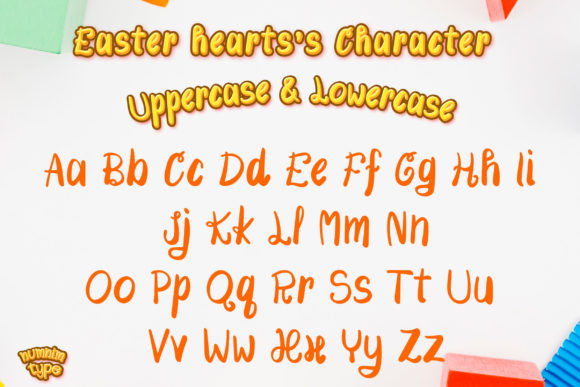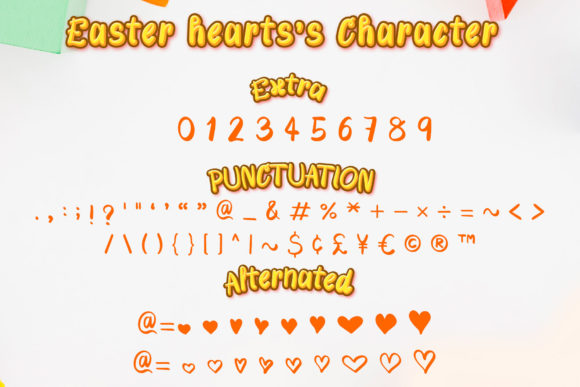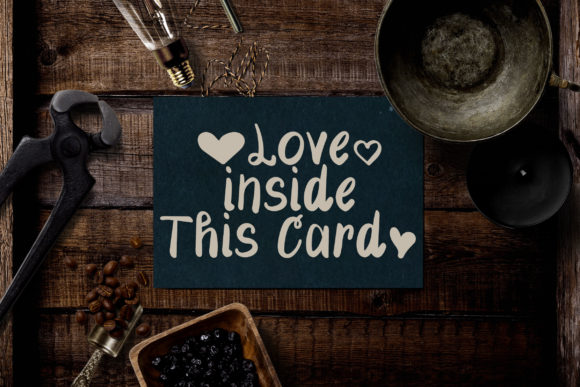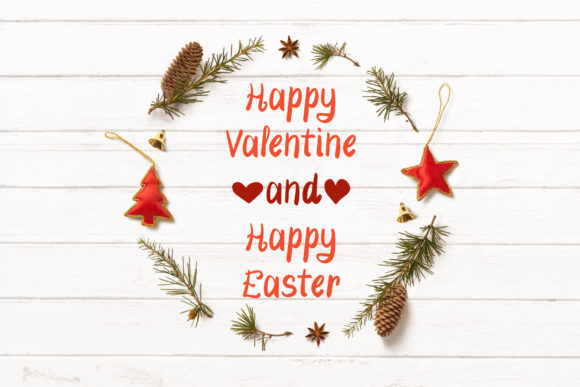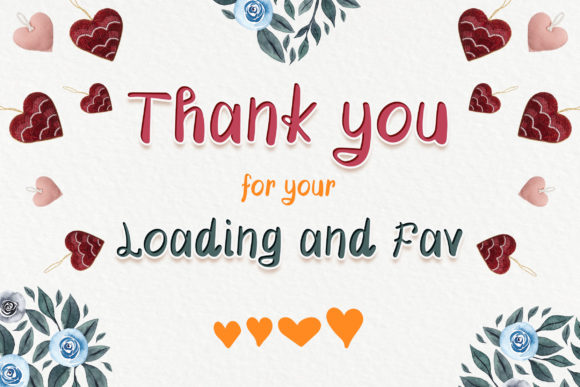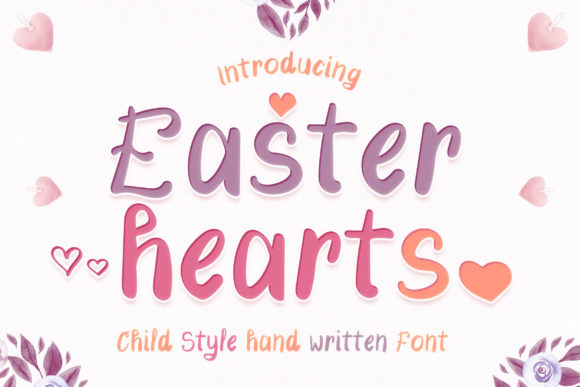
Easter Hearts Font: The Perfect Addition to Your Easter Designs
Are you looking for a font that captures the sweet and playful spirit of Easter? Look no further than Easter Hearts Font! This joyful and friendly display font is perfect for creating lovely designs for school or children-related projects. With its cute doodle elements and versatile style, Easter Hearts Font is sure to fall in love with your design heart.
What Makes Easter Hearts Font So Special?
Easter Hearts Font is a unique and charming font that features cute doodle elements, making it perfect for Easter-themed designs. The font’s sweet and playful style is sure to delight both kids and adults alike. Whether you’re creating designs for Easter cards, party invitations, or educational materials, Easter Hearts Font is the perfect choice.
One of the best things about Easter Hearts Font is that it’s PUA (Private Use Area) encoded. This means that you can access all of the glyphs and swashes with ease, giving you complete creative control over your designs. With PUA encoding, you can easily insert special characters, such as hearts, eggs, and other Easter-themed elements, into your designs.
Easter Hearts Font is a dream come true for designers and crafters. Whether you’re creating digital designs or handmade crafts, this font is perfect for adding a personal touch to your projects. Use Easter Hearts Font to create custom Easter cards, party decorations, or DIY crafts that are sure to impress.
Versatile and Easy to Use
Easter Design Ideas with Easter Hearts Font
Here are some Easter design ideas to get you started with Easter Hearts Font:
- Easter cards and invitations: Create custom Easter cards and invitations with Easter Hearts Font and make your loved ones feel special.
- Party decorations: Use Easter Hearts Font to create custom party decorations, such as banners, garlands, and DIY crafts.
- Easter-themed crafts: Create Easter-themed crafts, such as Easter egg decorations, bunny masks, and spring-themed artwork.
- Educational materials: Use Easter Hearts Font to create educational materials, such as worksheets, activity sheets, and educational posters.
Tips for Using Easter Hearts Font
Here are some tips for using Easter Hearts Font:
- Experiment with different font sizes and colors to add visual interest to your designs.
- Use Easter Hearts Font in combination with other fonts to create unique and eye-catching designs.
- Don’t be afraid to get creative and add your own personal touch to your designs.
Easter Hearts Font is a joyful and friendly display font that’s perfect for creating lovely Easter designs. With its cute doodle elements, versatile style, and PUA encoding, this font is a must-have for designers and crafters. Whether you’re creating Easter cards, party decorations, or educational materials, Easter Hearts Font is sure to add a touch of sweetness and playfulness to your designs.